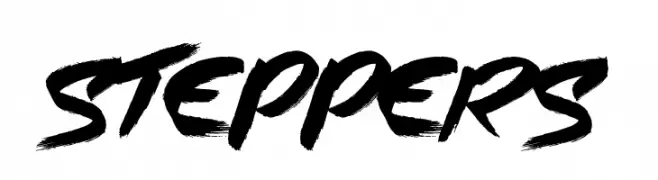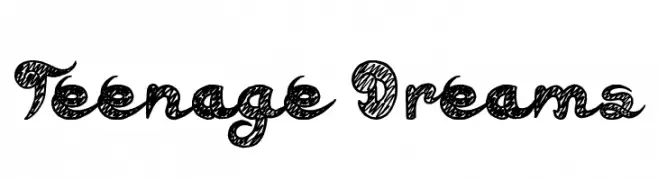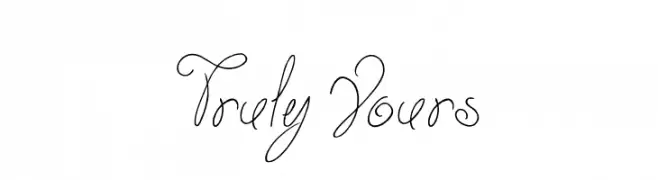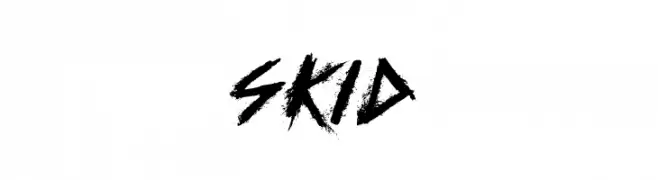
A bold, brush-style font with dynamic, expressive strokes.
A playful, hand-drawn font with a scribble texture and bold, rounded characters.
A bold, expressive handwritten font with dynamic brush strokes.
A graceful and fluid script font with a calligraphic style.
A bold, decorative font with zigzag edges and striped interiors.
A bold, expressive handwritten font with dynamic strokes.
A bold, brush script font with dynamic, energetic strokes and a raw, edgy texture.
A bold, brush-stroke font with a dynamic, textured appearance.
A bold, energetic handwritten font with playful and expressive strokes.
A dynamic, cursive script font with high contrast and elegant flow.